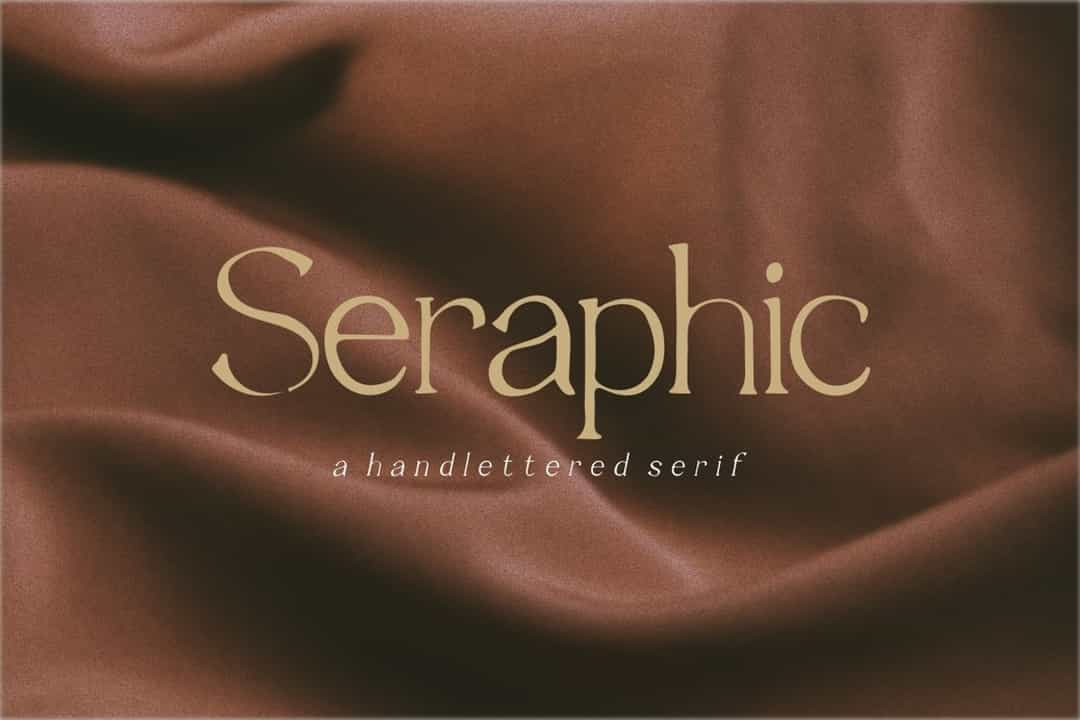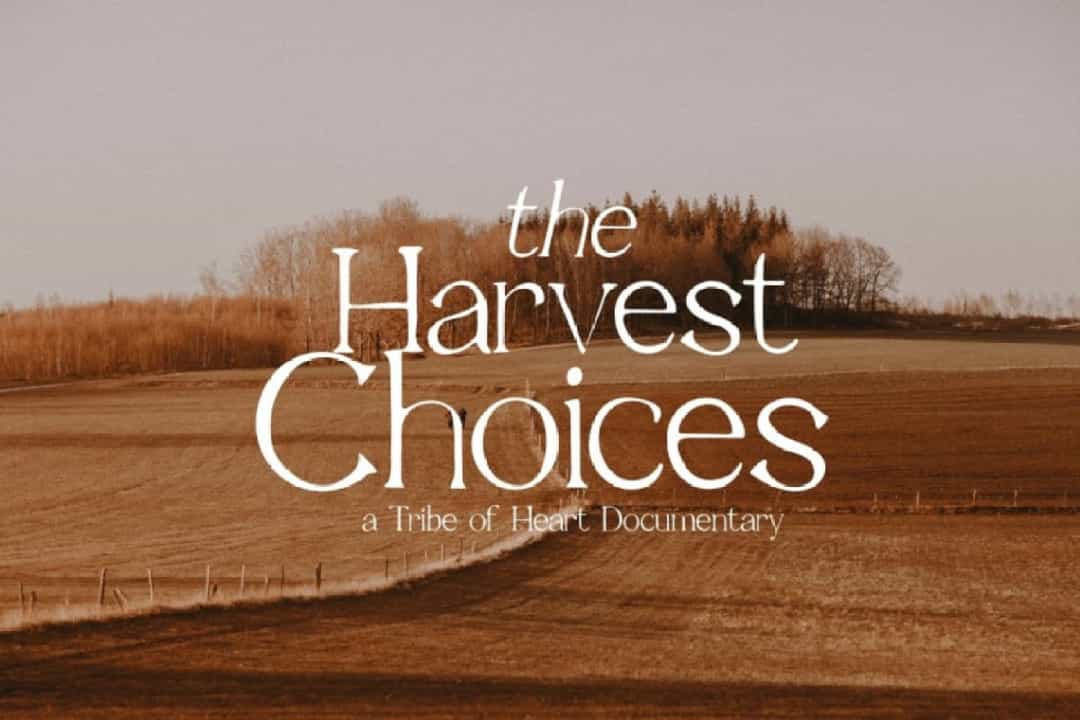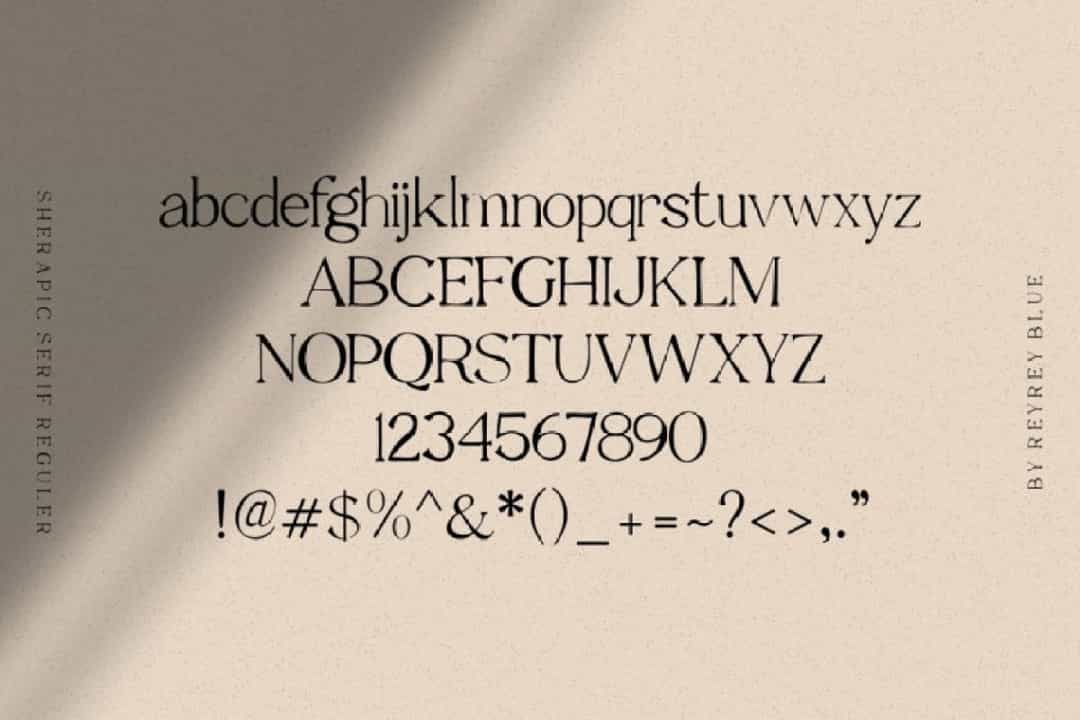
Seraphici is an elegant and slim lettered serif font that works beautifully in designs needing something unique; perfect for wedding invitations, thank-you cards, greeting cards, logos and more.